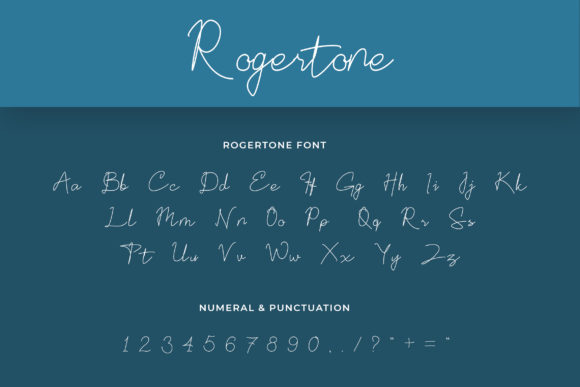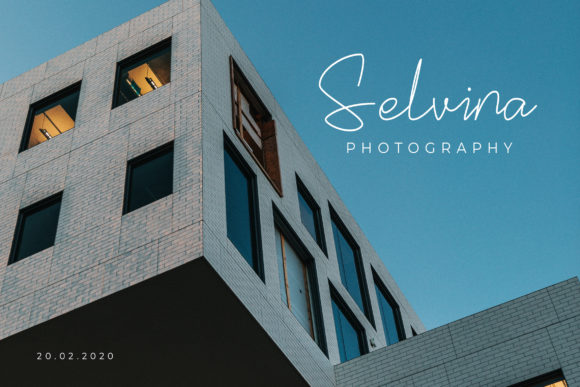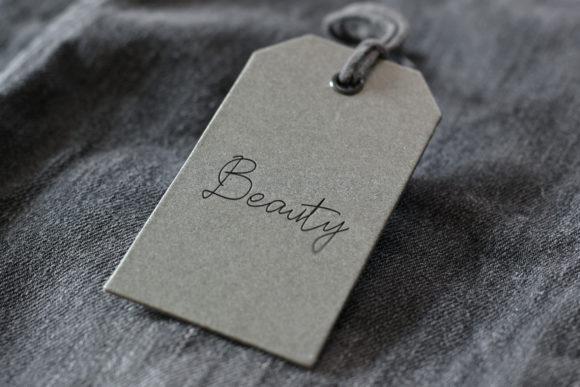
About Rogertone Font
“Rogertone” sounds like an elegant script font that exudes delicacy and class. With its balanced and varied appearance, this font is perfect for enhancing the beauty of your projects.
By using “Rogertone” in your designs, you can create a sense of sophistication and refinement. Its script style adds a touch of elegance, making your projects feel more polished and stylish.
This font’s delicate and classy look makes it suitable for a wide range of design projects. Whether you’re working on wedding invitations, branding materials, editorial designs, or any other project, “Rogertone” can elevate the visual appeal and add a touch of luxury.
With “Rogertone,” you have a font that enhances the aesthetic of your designs with its refined and graceful appearance. Embrace its delicacy and let it be the font that elevates the overall beauty of your projects.
Incorporate “Rogertone” into your designs, and you’ll notice how it brings a sense of elegance and sophistication to your creations. Its balanced and varied script style will make your projects stand out with a delicate and tasteful feel.
While using “Rogertone” in your designs, remember to maintain legibility, especially for longer texts. Proper spacing and alignment between letters ensure that the text remains clear and easy to read, preserving the font’s overall elegance and class.
In conclusion, “Rogertone” is an elegant script font that offers delicacy and refinement. Embrace its balanced and varied appearance and use it to enhance the beauty of your projects. With “Rogertone,” your designs will exude a sense of sophistication and luxury, making them visually stunning and classically timeless.